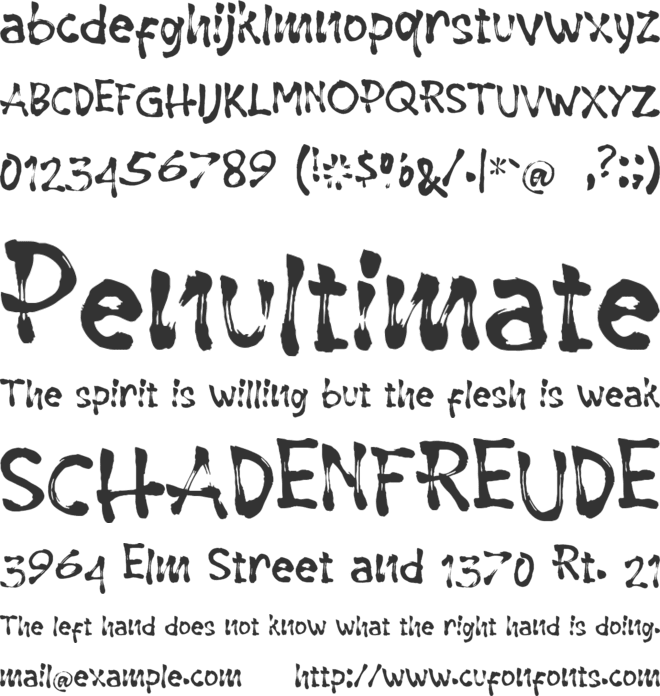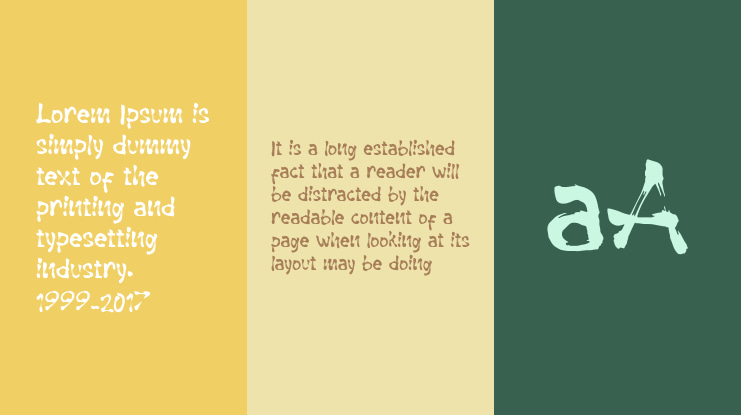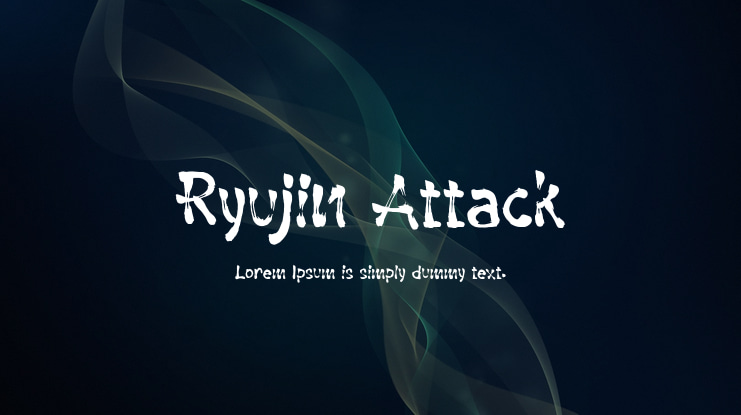
Ryujin Attack Font
Ryujin Attack is a trendy brush typeface with natural hand writing style. You can use this font to elevate any of your design project FOR FREE!!